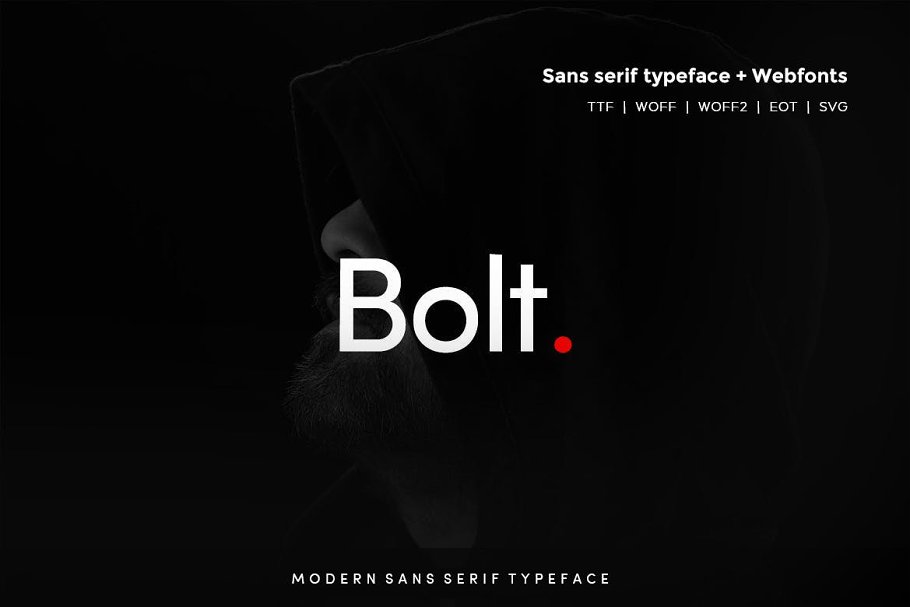
About the Bolt Sans Modern Typeface
Bolt Sans TypefaceBolt Sans is a modern and Minimal Sans Serif typeface, Bolt Sans can keep the minimalism at its level best and is a perfect choice for Creative and Classic Typography Designs, The pack includes OTF, TTF, and Web Fonts (all EOT, SVG, TTF, WOFF included), Html Webfont Demos Included in the download pack, CREDITS:Font Designed and Crafted by Adam Johns & Errick (Old Font Factory 2009 ), Distributed by Webhance Studio